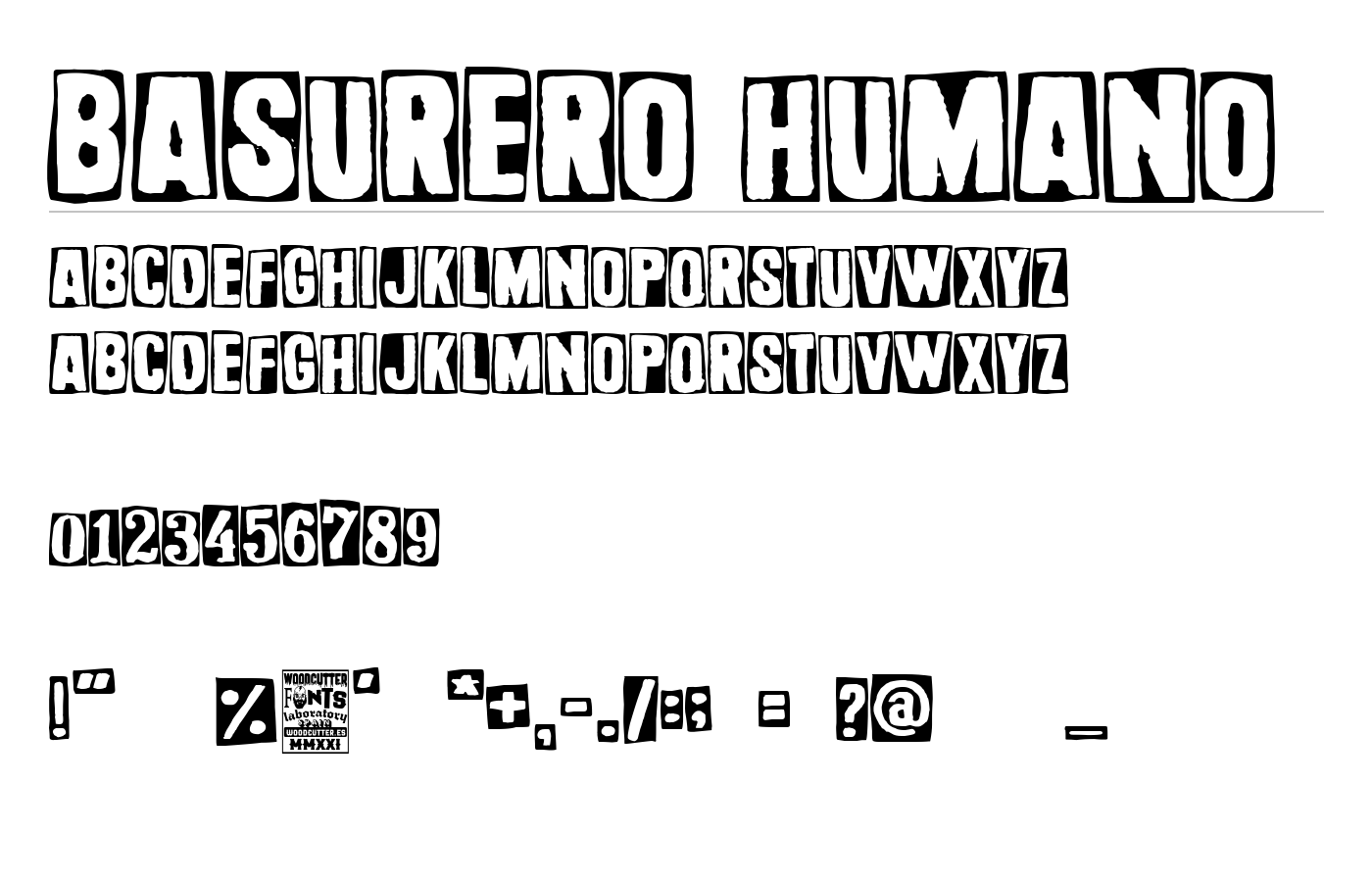
Basurero Humano is a bold, playful display font with a hand-drawn, block-style design that features irregular edges and a quirky, energetic vibe. Its heavy weight and tightly packed letterforms make it ideal for eye-catching headlines, posters, and branding that seeks to convey a fun, informal, or edgy personality. This font works best in creative projects where uniqueness and strong visual impact are key, rather than for long blocks of text.
Basurero Humano Font
About Basurero Humano Font